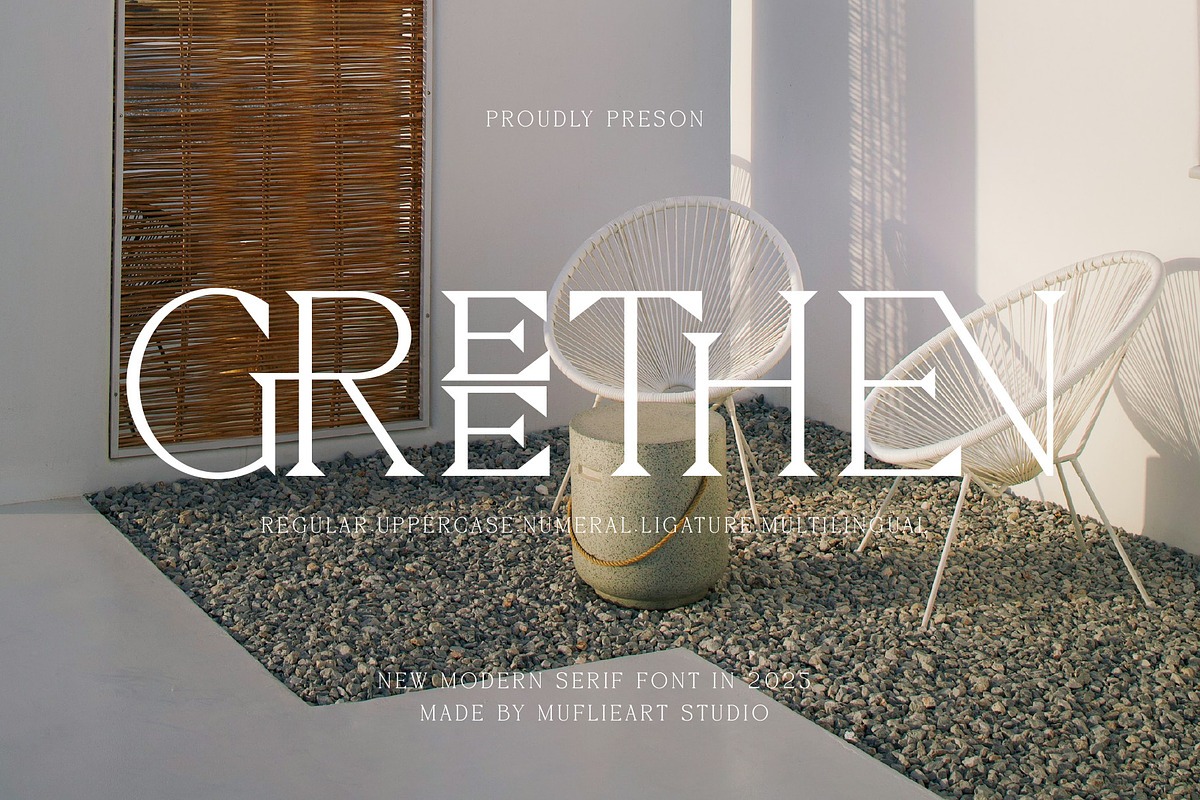
Greethen Font
Greethen Font, an elegant, beautiful, and modern Serif. With its modern and minimalist look, Greethen brings a luxurious, classy, and clean style to your projects such as websites, modern logos, brand identities, social media quotes, wedding stationery, magazines, and more!
Greethen features unique and classy capital letters A to Z making Smansa a beautiful font that can be customized for various projects and jobs you want.